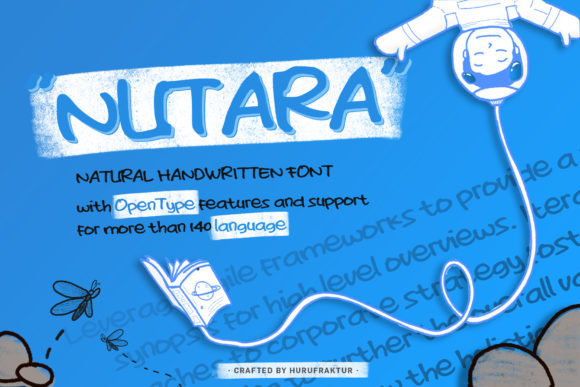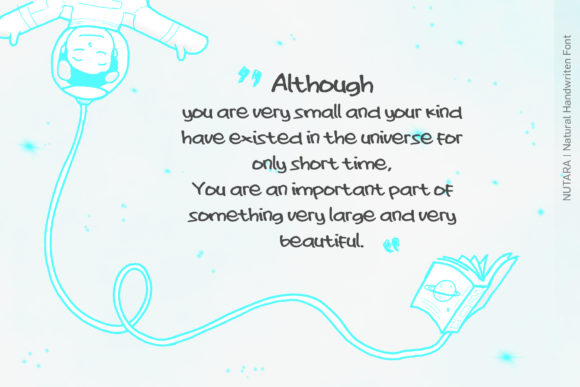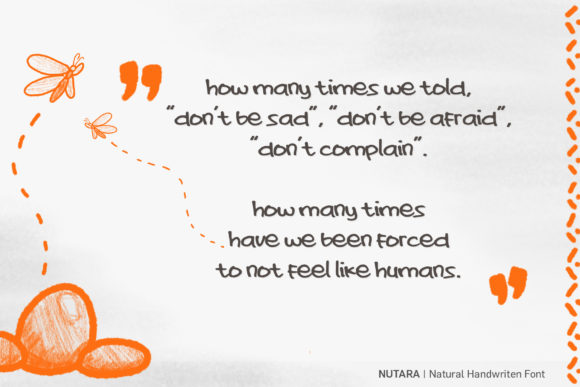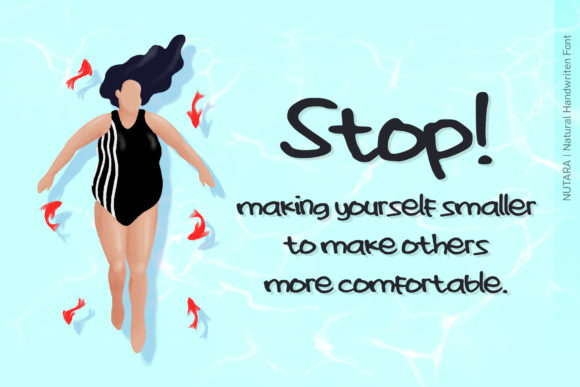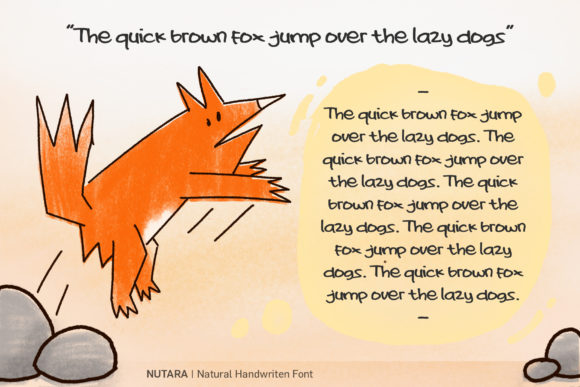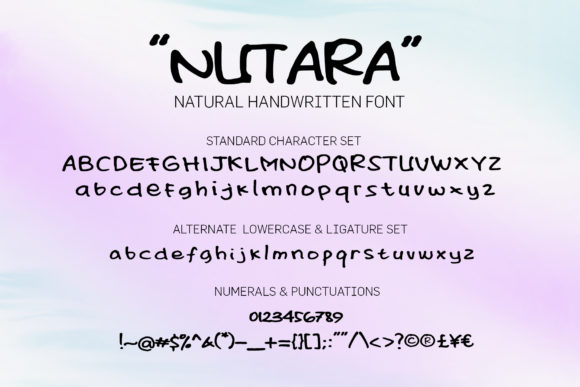
HomeScript FontsNutara Font Script Fonts Nutara Font FacebookXPinterestWhatsApp Nutara Font Poster 2 Nutara Font Poster 3 Nutara Font Poster 4 Nutara Font Poster 5 Nutara Font Poster 6 About Nutara Font Nutara is a sweet and cool handwritten font with a casual look. Get inspired by its unique style. DOWNLOAD NOW People also explored Afjuck Font Skyhigh Font Juwita Font Cannella Font Bellmounts Font Noodle Font PAG Smoke Simply Lovely Font Butterfly Font 290 0 TagsNutara Font Previous articleHidayah FontNext articleSantaria Font LEAVE A REPLY Cancel reply Comment: Please enter your comment! Name:* Please enter your name here Email:* You have entered an incorrect email address! Please enter your email address here Website: Save my name, email, and website in this browser for the next time I comment. Personal Use Free Hubbies Personal Use Free Read more about this font Equalizer Script Personal Use Free Read more about this font Santhony Personal Use Free Read more about this font Calega Personal Use Free Read more about this font BLOG How to Cut Any Font on Cricut: Convert a Font to SVG (Free) Turn any font into a clean SVG so it cuts crisp on Cricut - a quick 3-step workflow using a free font-to-SVG tool. Free Fonts Risk: Why Free Fonts Can Be Dangerous for Designers Exploring Font Trends Fonts That Capture the Spirit of New York City